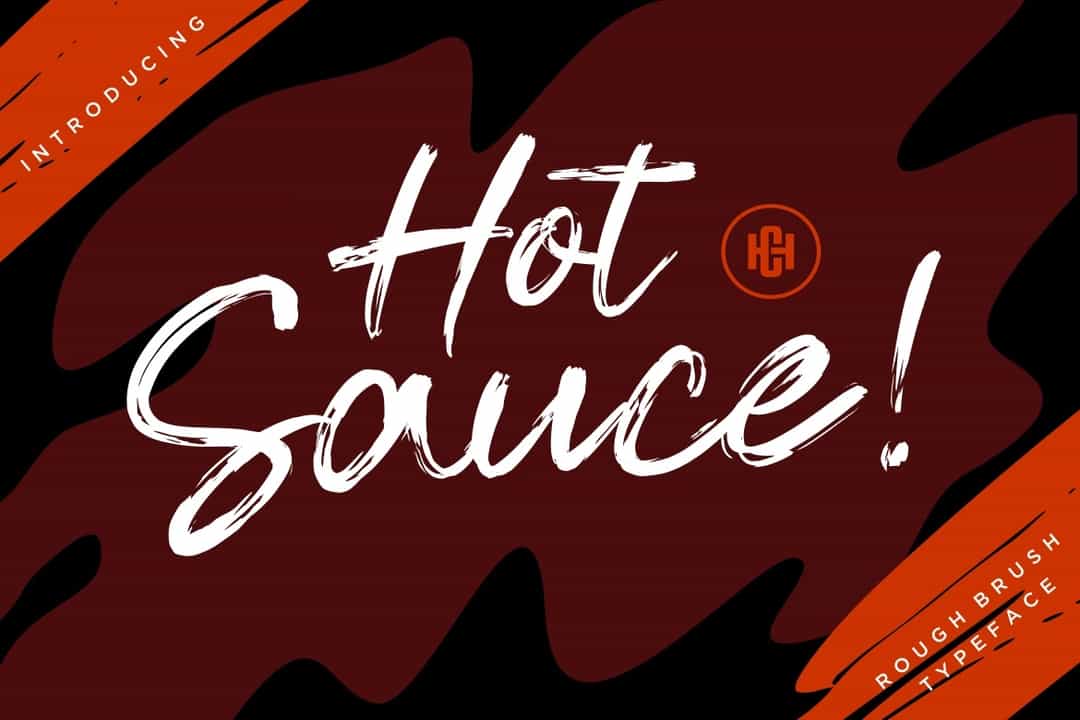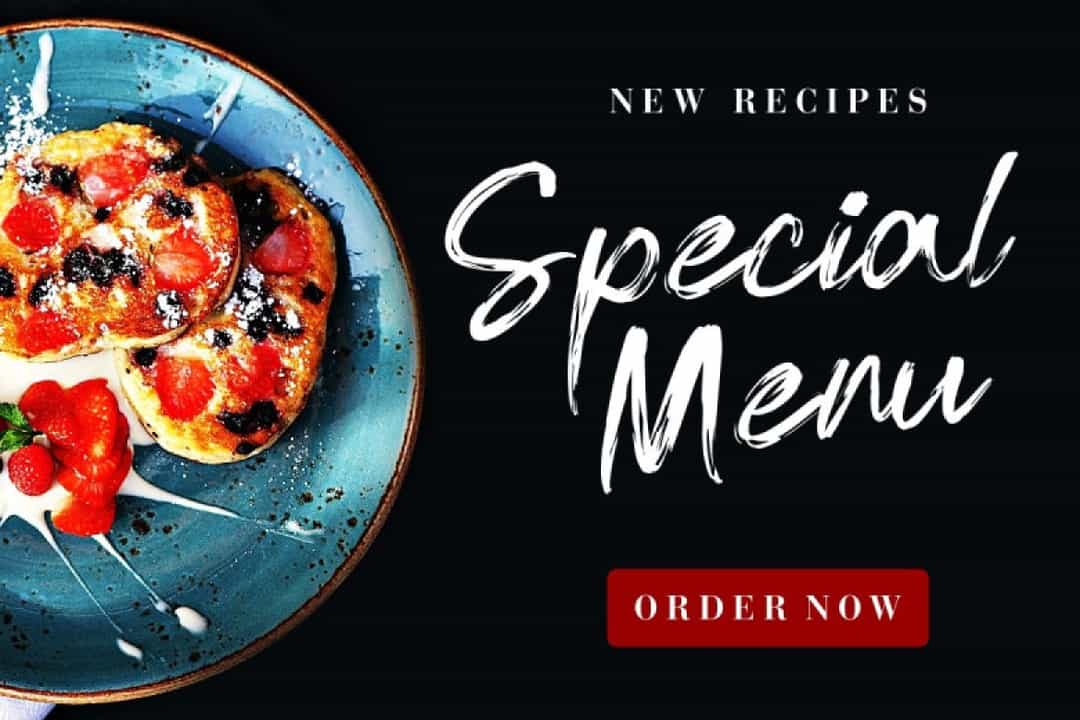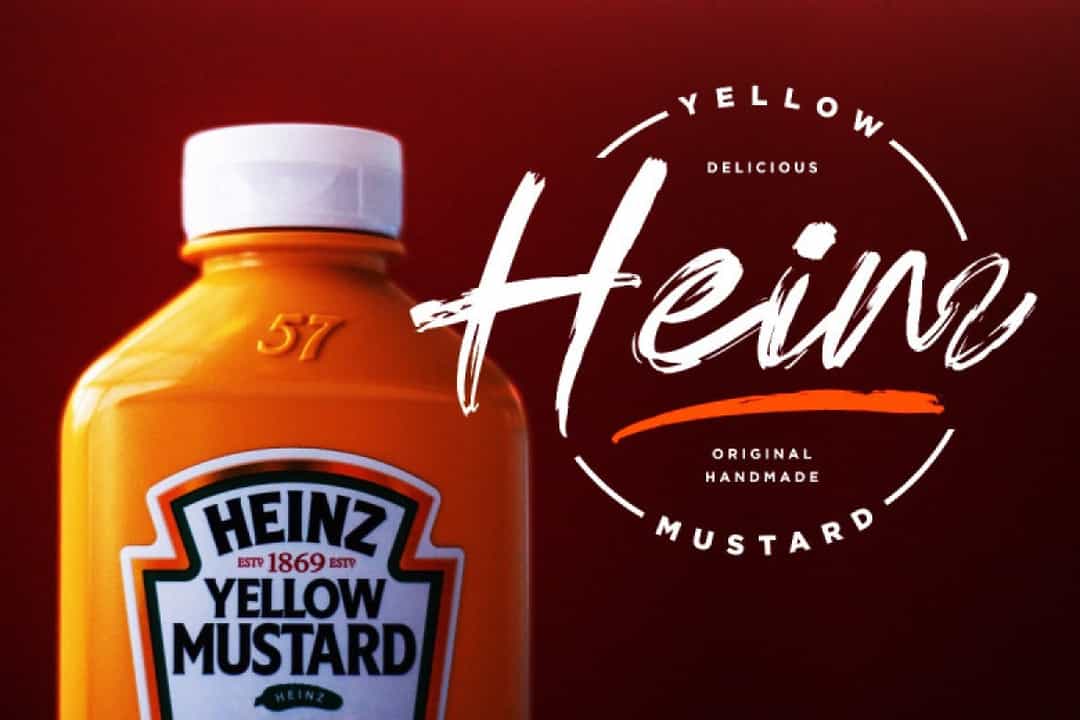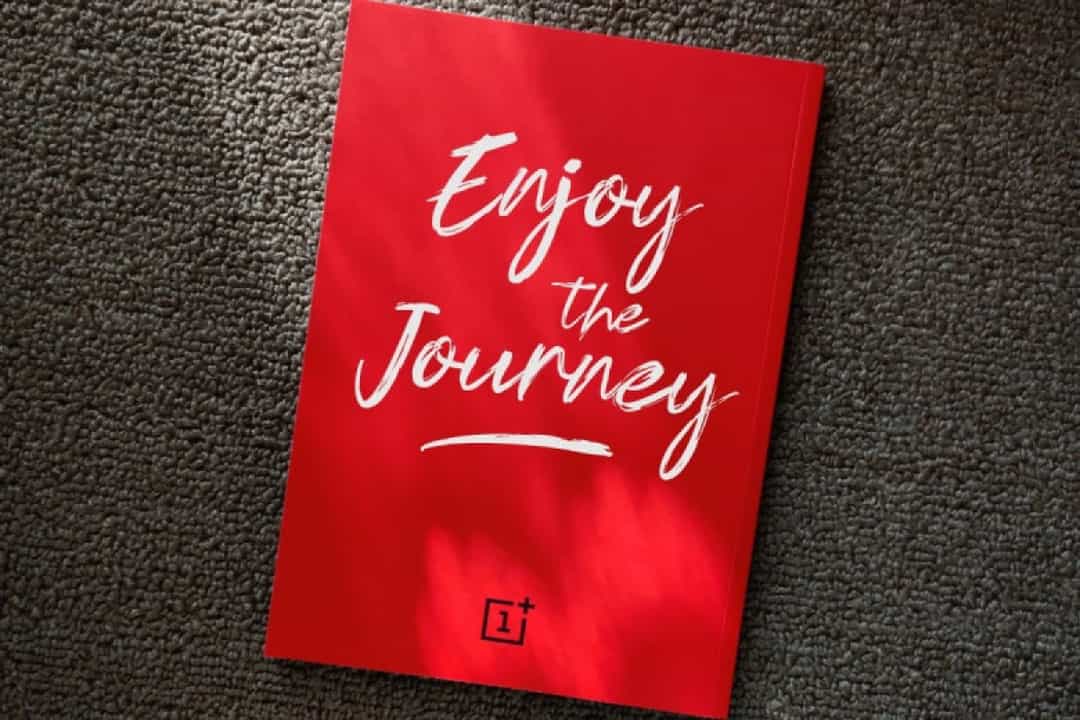
Hot Sauce is a powerful hand-drawn dry brush Font that is suitable for the headlines and logotypes. With automatic contextual alternates and standard ligatures whereby the text will always look fresh and lively, Hot Sauce is an ideal font to use in any text environment.